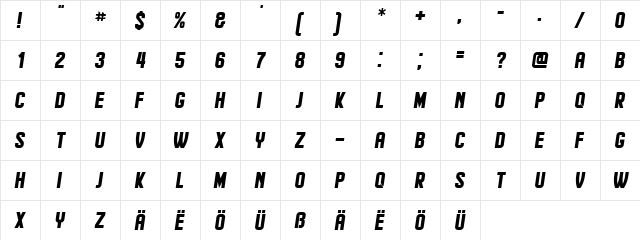
Hindenburg Italic Font Preview
Hindenburg Italic
Design Context for Hindenburg Typeface
Hindenburg takes a measured approach to typography — its balanced proportions and neutral character make it a reliable workhorse for both digital and print work. The dynamic lean of this cut emphasises speed and emphasis in any layout.